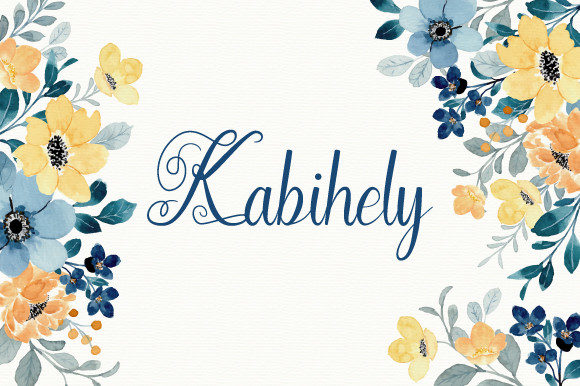
Behold Kabihely Font, a resplendent script font, its elegance and finesse exuding an aura of sophistication. Immerse yourself in its carefully crafted characters, each stroke whispering a tale of creativity and charm. Kabihely Font is a testament to the beauty of calligraphy, its flowing lines and delicate curves harmonizing in perfect union.
With Kabihely Font, your designs will transcend the ordinary, captivating your audience with an allure that is both timeless and captivating. Whether you're crafting wedding invitations that evoke a sense of romance, creating social media posts that demand attention, or conjuring stationary art that radiates with elegance, Kabihely Font is your perfect companion.
Unleash your creativity and let Kabihely Font elevate your designs to new heights. Its versatility knows no bounds, and its enchanting style will transform your words into works of art. Embrace the allure of Kabihely Font and embark on a journey of design excellence.
**Reasons to Love Kabihely Font:**
- **Beauty Beyond Compare:** Kabihely Font is a symphony of elegance, its letters dancing gracefully across the page, captivating your audience with their refined beauty.
- **Versatility Unleashed:** From wedding invitations to social media posts, from logos to branding materials, Kabihely Font seamlessly adapts to your design needs, effortlessly adding a touch of sophistication to every project.
- **A Touch of Grace:** With its delicate curves and flowing strokes, Kabihely Font brings a touch of grace to your designs, imbuing them with an aura of timeless elegance.
- **Creativity Unbound:** Kabihely Font ignites your creativity, empowering you to craft designs that break the boundaries of convention, leaving your audience spellbound.
- **Effortless Elegance:** Using Kabihely Font is a breeze, its intuitive design ensuring a smooth and seamless experience, allowing you to focus on creating designs that shine.